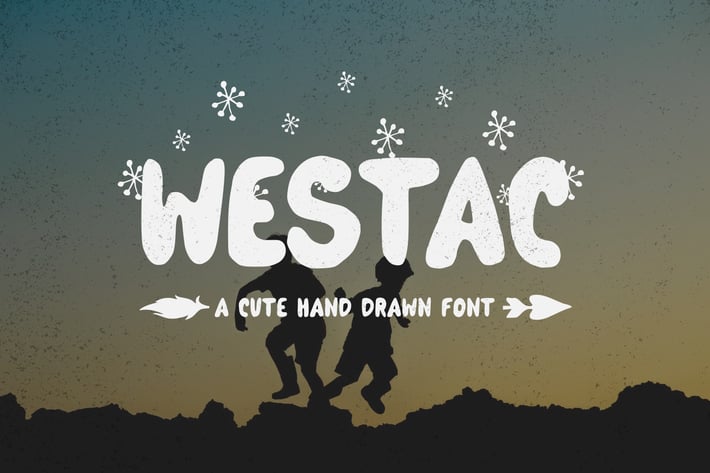
Westac - A Cute Hand Drawn Font
Westac - A Cute Hand Drawn Font, every single letter has been carefully crafted to make your text looks beautiful. it's perfect for logos, name cards, magazine layouts, invitations, headers, or even large-scale artwork.
- Westac font including upper & lowercase characters, numerals and more of symbols.